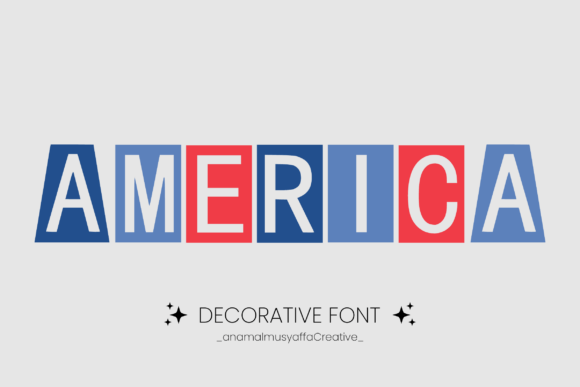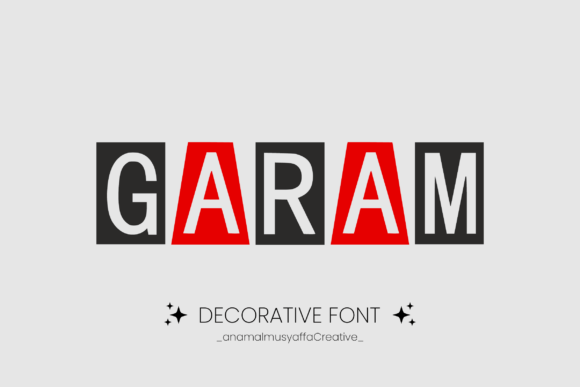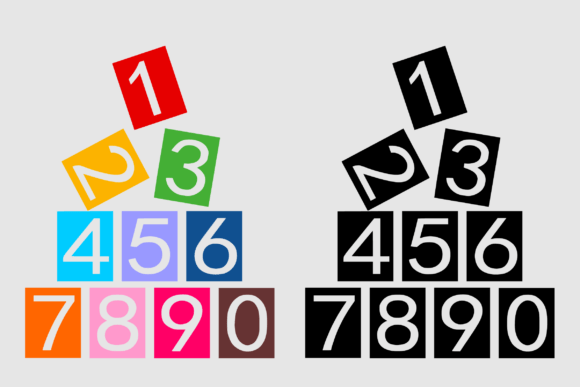
Introduction to Seblack Font
Welcome to the captivating world of “SeBlack,” a typeface that combines geometric precision with distinct versatility.
Perfectly square, each character of this font captures attention and underlines importance, making “SeBlack” ideally suited for head-turning titles and headlines Its clean lines and neat angles shine in sublimation printing, lending a polished touch to mugs and other print mediums.